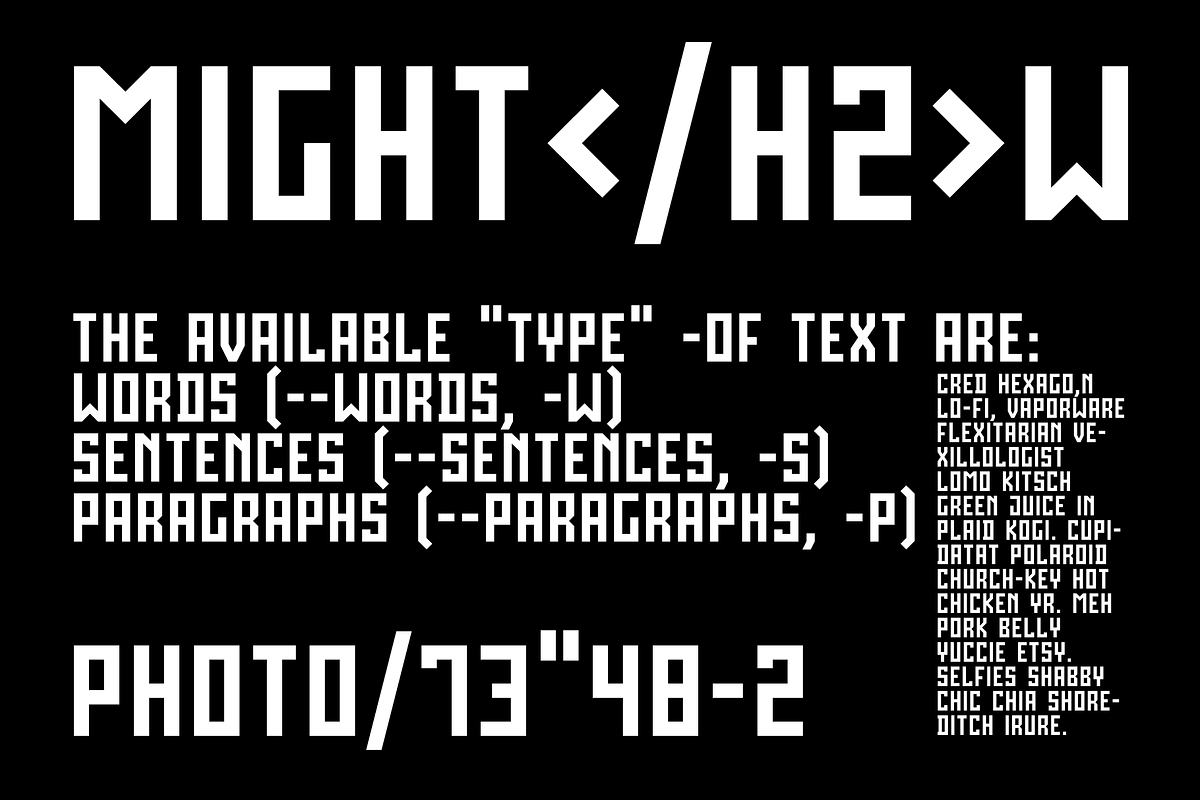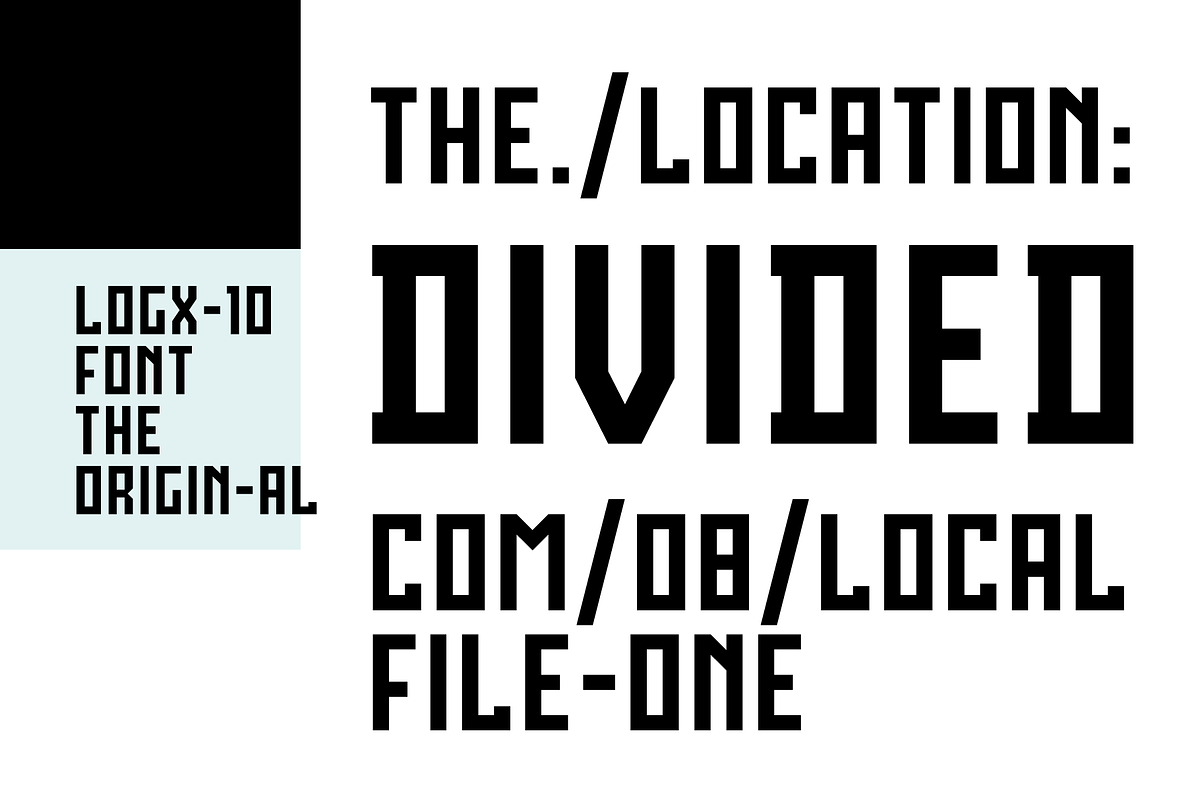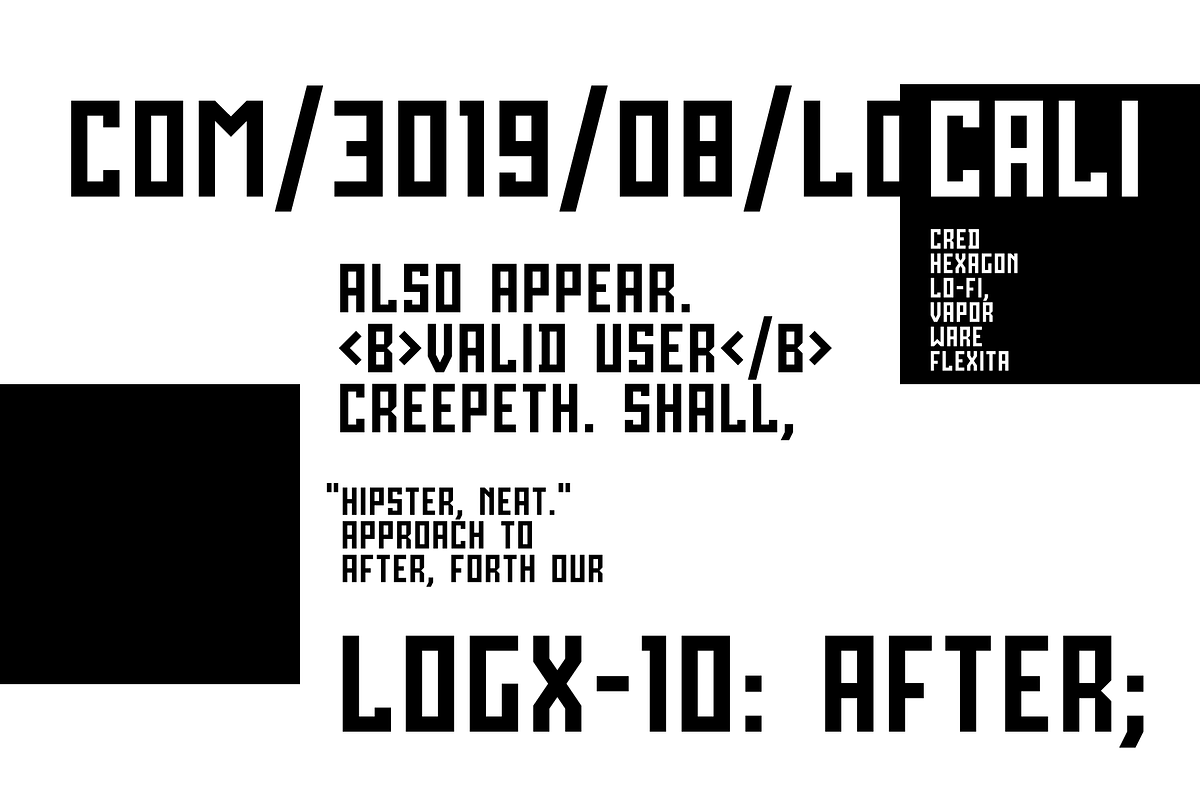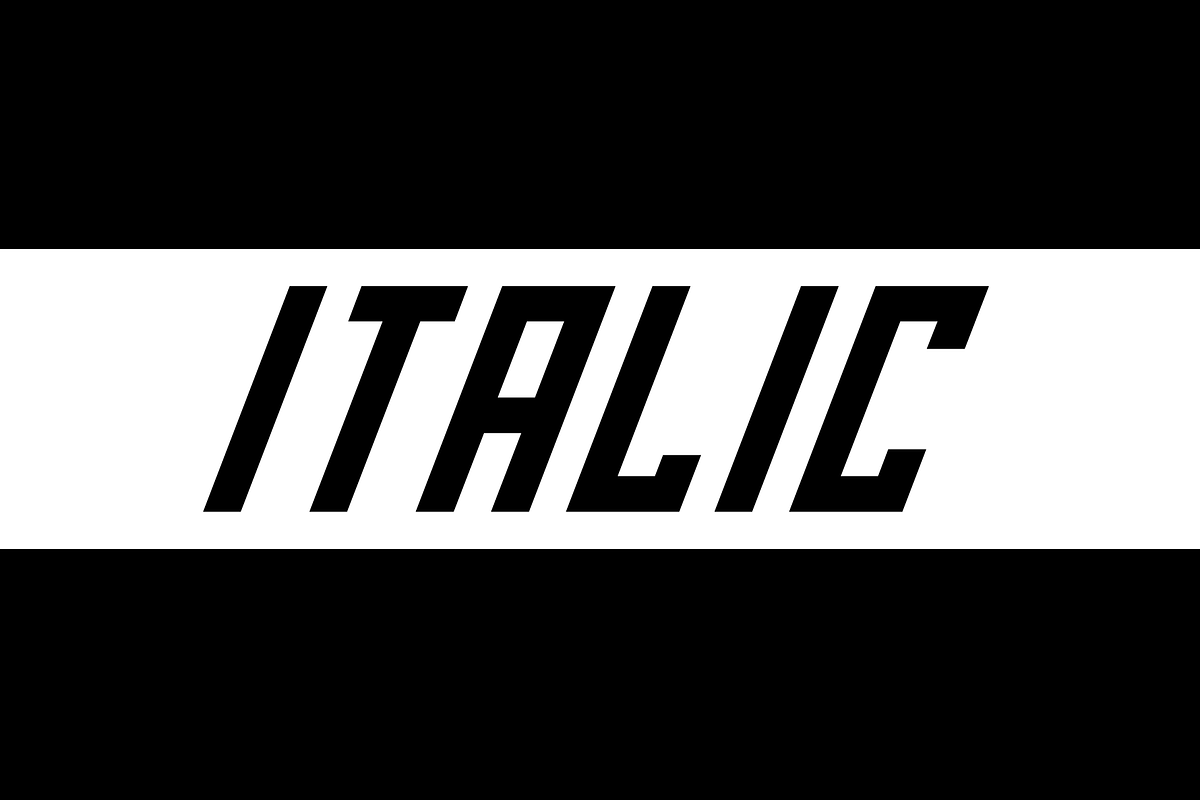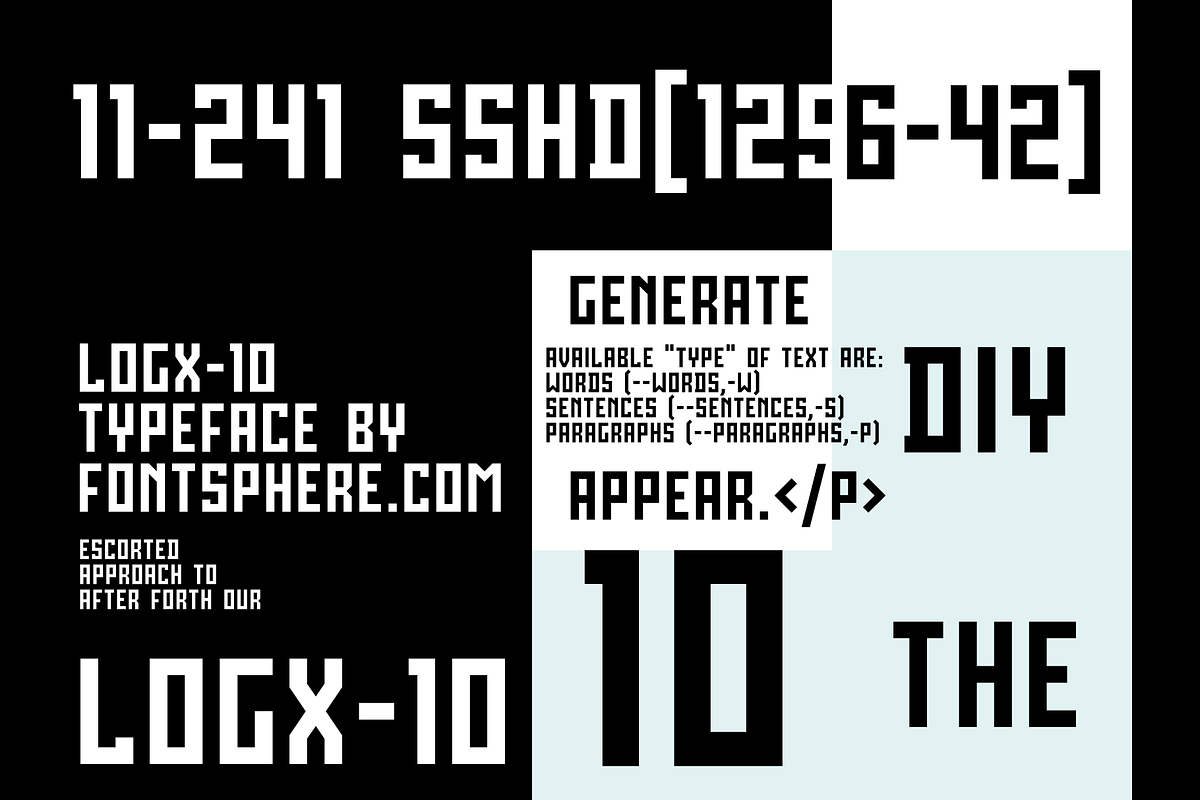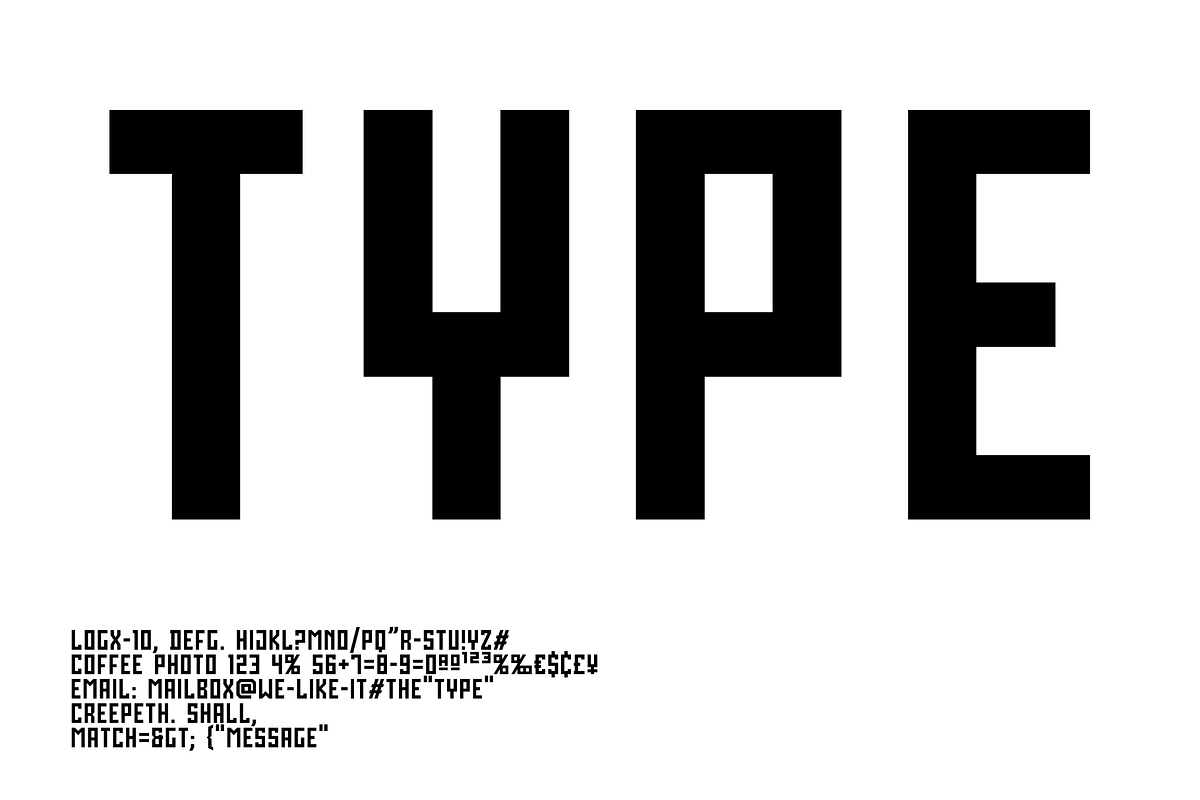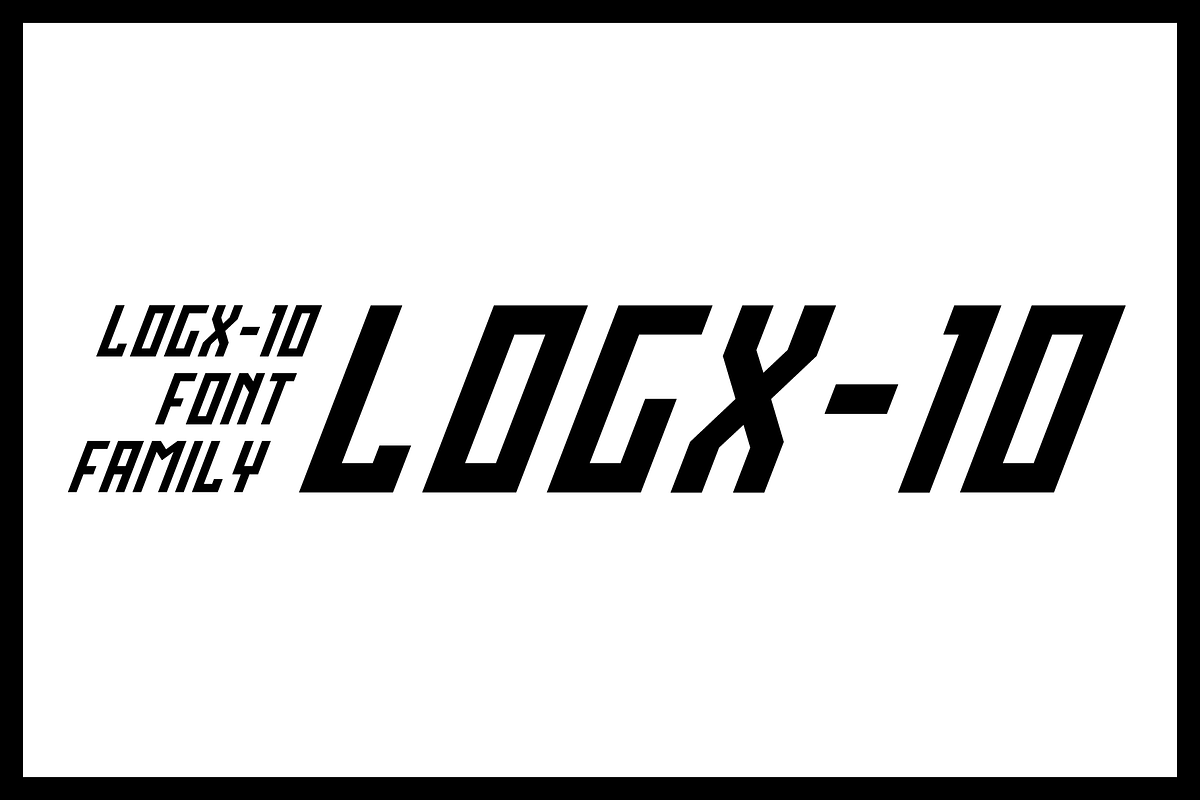
LOGX-10 Font Family
LOGX-10 is a geometric minimalistic all-caps display typeface. Two fonts in the Family:
Designed for strong headers, original graphic designs, visual identification and for many types of designs.
It works not only in headings and subtitles but also in arrangements of various sizes and long text.
LOGX-10 Font Family by Fontsphere fits naturally into Branding, posters, packaging, typography.